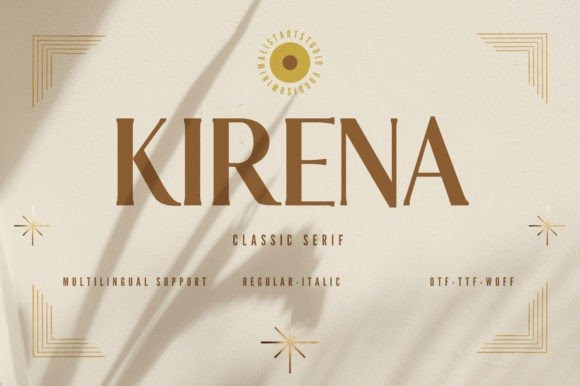
Kirena Font
Kirena Font is a classic, feminine, and elegant serif typeface. Its simple aspect and perfectly curved construction render it a valid choice when you are designing elegant, luxurious, or feminine stuff. Use it in your creative ideas and notice how much power it holds inside.